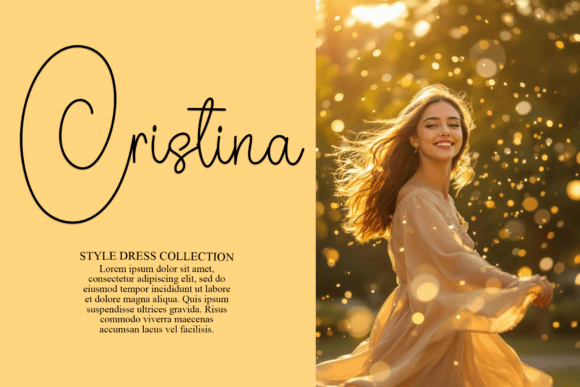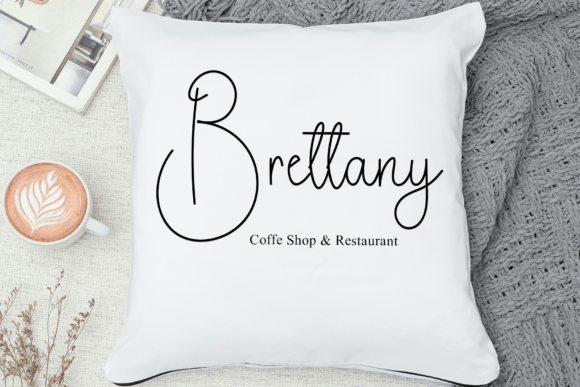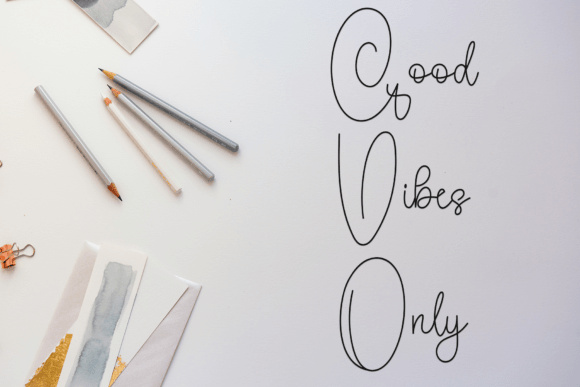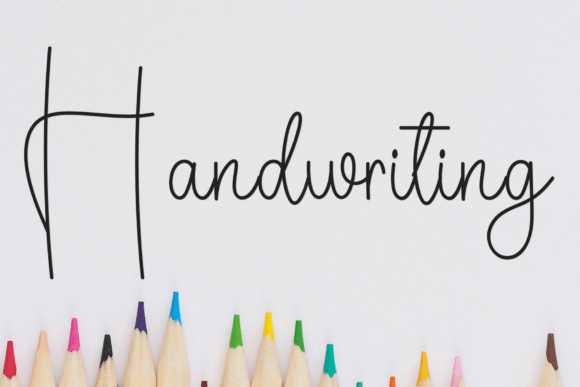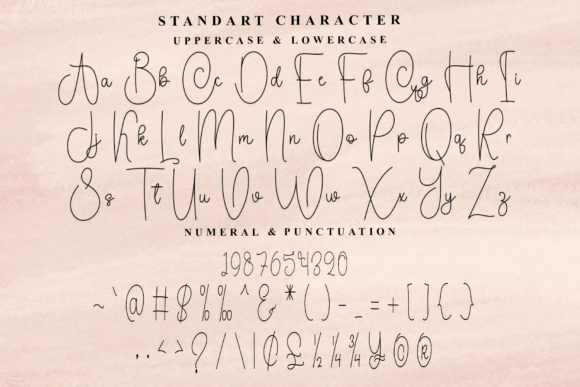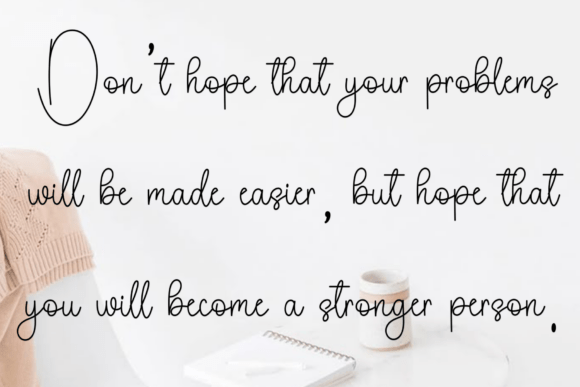
Introducing Geovany Font: The Ultimate Holiday Typeface for Your Festive Designs
Are you looking for a font that embodies the spirit of the holiday season? Do you want to add a touch of magic to your designs, greeting cards, and gift tags? Look no further than Geovany Font, a festive and merry typeface that’s perfect for bringing cheer and nostalgia to your projects.
What Makes Geovany Font So Special?
Geovany Font is a decorative typeface that’s specifically designed to capture the essence of the holiday season. With its whimsical flair and enchanting elements, this font is sure to add a spark of joy to your designs. Whether you’re working on holiday-themed projects, creating greeting cards, or designing gift tags, Geovany Font is the perfect choice.
Key Features of Geovany Font
- Decorative Elements: Geovany Font features a range of decorative elements that are sure to add a touch of festivity to your designs. From snowflakes to holly leaves, this font has everything you need to create magical and memorable projects.
- Whimsical Flair: With its playful and whimsical design, Geovany Font is perfect for adding a touch of personality to your typography. Whether you’re creating a holiday-themed poster or a festive greeting card, this font is sure to bring a smile to your audience’s faces.
- PUA Encoded: Geovany Font is PUA encoded, which means you can access all of the amazing glyphs and ligatures with ease. This makes it simple to create stunning designs that showcase the full range of this beautiful font.
Geovany Font is perfect for designers and crafters who want to add a touch of magic to their projects. Whether you’re creating holiday-themed designs, crafting greeting cards, or designing gift tags, this font is sure to inspire your creativity.
Ideas for Using Geovany Font
- Holiday Greeting Cards: Use Geovany Font to create stunning holiday greeting cards that are sure to delight your friends and family.
- Gift Tags: Add a touch of festivity to your gift tags with Geovany Font. Perfect for Christmas, Hanukkah, or any other holiday celebration.
- Holiday-Themed Posters: Create eye-catching holiday-themed posters with Geovany Font. Perfect for advertising holiday events or promoting seasonal sales.
- Crafting Projects: Use Geovany Font to add a touch of personality to your crafting projects. Perfect for scrapbooking, journaling, or any other craft that involves lettering.
Tips for Getting the Most Out of Geovany Font
- Experiment with Different Sizes: Geovany Font looks great in a range of sizes, from small and delicate to large and bold. Experiment with different sizes to find the perfect fit for your project.
- Combine with Other Fonts: Geovany Font pairs well with a range of other fonts. Try combining it with a simple sans-serif font for a striking contrast.
- Use the Glyphs and Ligatures: Don’t be afraid to get creative with the glyphs and ligatures in Geovany Font. These special characters are what make this font truly special.